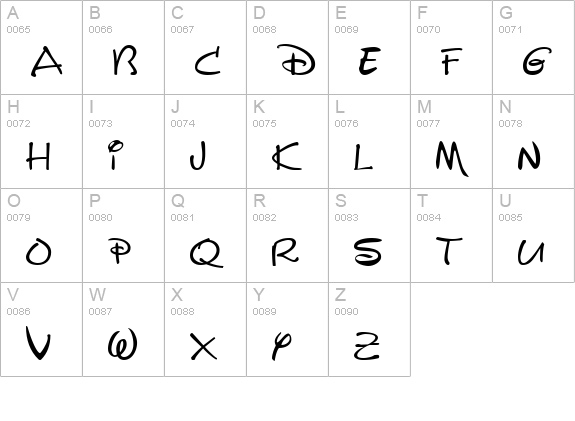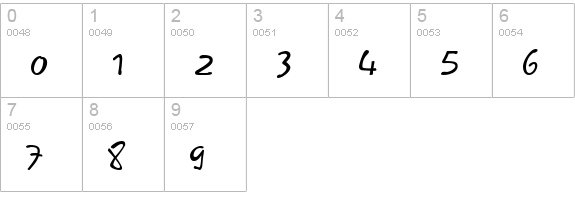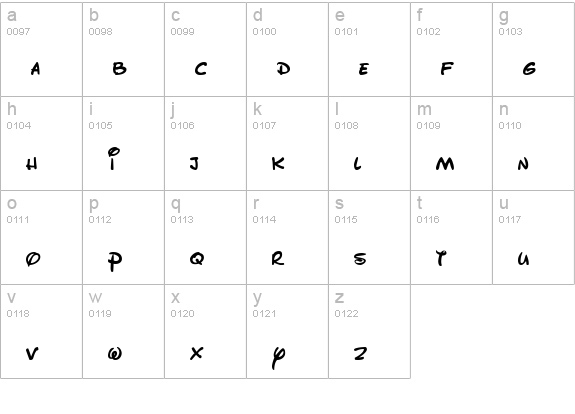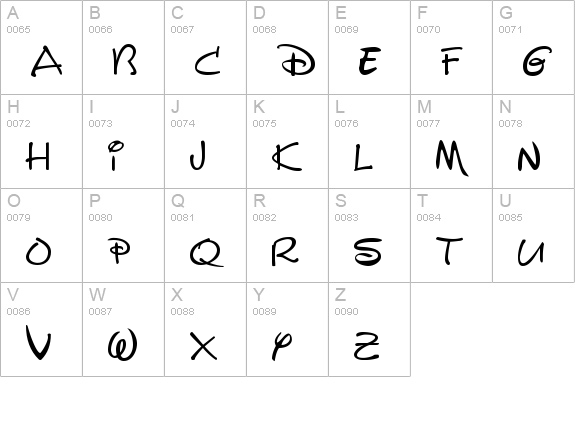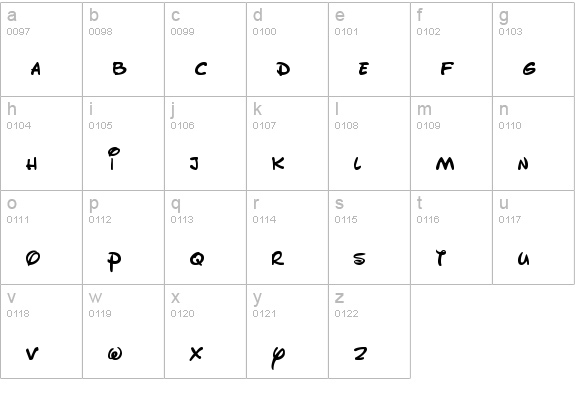
DisneyPark Font Details
DisneyPark font is a whimsical and enchanting typeface inspired by the magic of Disney. With its playful curves and charming details, this font captures the essence of imagination and fantasy. Whether you're creating a birthday invitation, a greeting card, or a poster for a theme party, DisneyPark font will add a touch of charm and nostalgia to your design. The best part is that DisneyPark font is completely free to use! You can easily download it at FontsMarket.com and start adding a sprinkle of Disney magic to your projects. Let your creativity run wild with this delightful font that brings a touch of Disney to your designs. Transport yourself to the world of fairy tales and dreams with DisneyPark font - the perfect choice for all your creative endeavors.